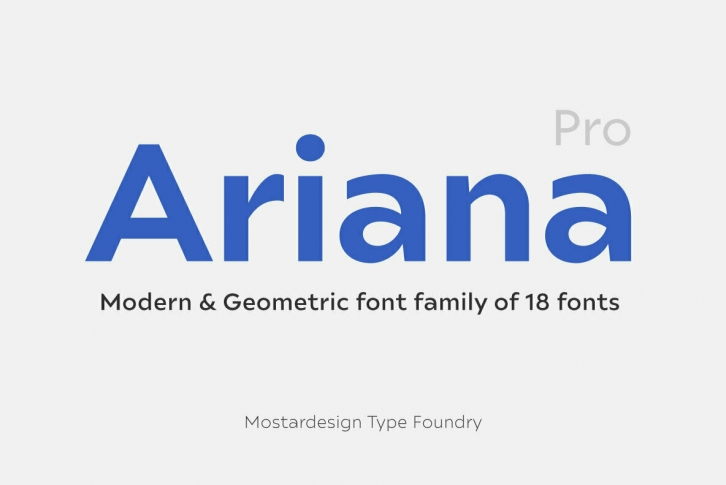
Ariana Pro is a geometric font family. It provides advanced typographical support with features such as case sensitive forms, small caps, ligatures, alternate characters, fractions, circled gures, pro kerning…This typeface comes with a complete range of ligature set options. It comes in 9 weights with corresponding italics and it’s suited for multiple purposes including editorial use, web font, apps, digital ads and also for advertising, long text and branding.
As a modern sans serif font family, Ariana Pro has also an extended character set to support Central and Eastern European as well as Western European languages.